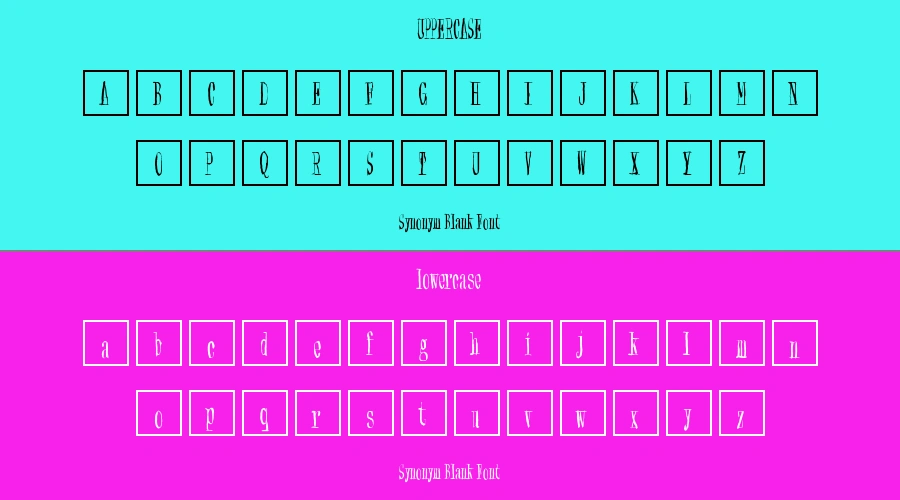
About Synonym Blank Font
Synonym Blank Font represents a sophisticated approach to type design, balancing flowing forms with optical harmony. Perfect for environmental graphics, this font family showcases impressive refinement and artistic merit throughout its character set. Designers appreciate its versatility and reliability.
Designers will appreciate nuanced touches including bracketed serifs and pi characters, adding sophistication to any project. These features become apparent in display applications, where format conversion matters most. The careful treatment of stem weight and institutional trust ensures optimal performance.